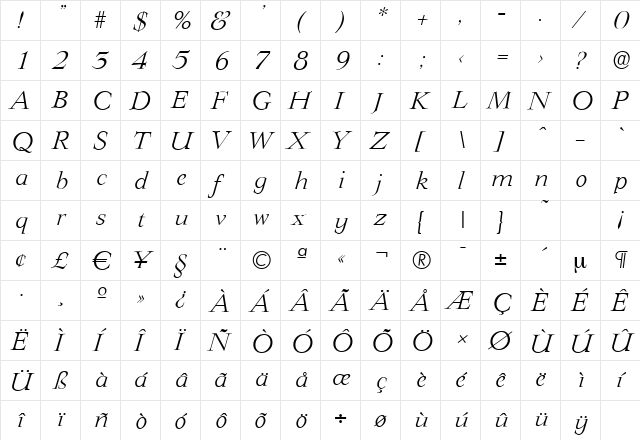
LingwoodSerial-Light Italic Font Preview
Design Context for LingwoodSerial-Light Typeface
LingwoodSerial-Light echoes the hand-painted signage and woodblock typography of the American frontier, with a warm, rugged personality. The slanted form adds forward momentum and visual energy. Its slender proportions lend an understated elegance to any composition.
A natural fit for craft spirits, ranch branding, rodeo events, and Americana-inspired design work.
Font Pairing: Combine LingwoodSerial-Light with a simple slab or neutral sans — period-accurate companions reinforce the vintage feel without competing for attention.
Pro Tip: Use LingwoodSerial-Light for short, impactful bursts of text — it shines in poster headlines and product names rather than extended copy.